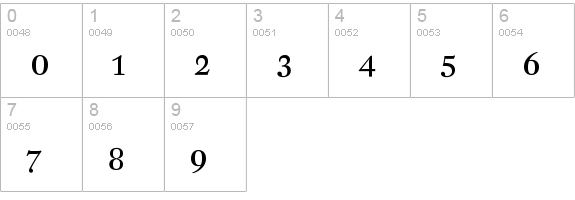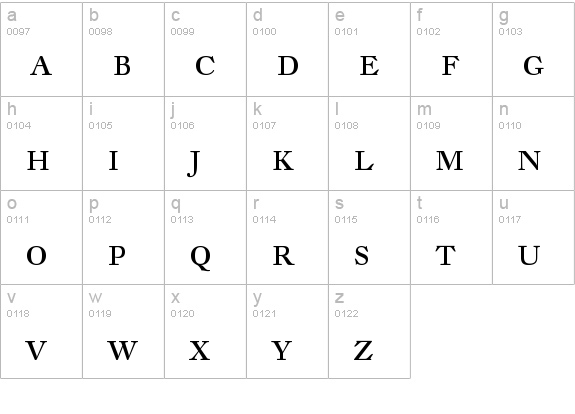
DTLFleischmannDCaps Font Details
DTLFleischmannDCaps is a beautifully crafted font that exudes elegance and sophistication. With its unique design and intricate details, this font is perfect for adding a touch of class to your projects. The tall, ornate letterforms of DTLFleischmannDCaps make a bold statement and are sure to capture attention. What sets DTLFleischmannDCaps apart is not only its stunning aesthetics but also its versatility. Whether you're designing a poster, logo, or wedding invitation, this font will elevate your work to the next level. Its timeless appeal and classic look make it a must-have for any designer looking to make a lasting impression. The best part? DTLFleischmannDCaps is completely free to download at FontsMarket.com. So why wait? Add this exquisite font to your collection today and watch your designs come to life with a touch of sophistication and style.